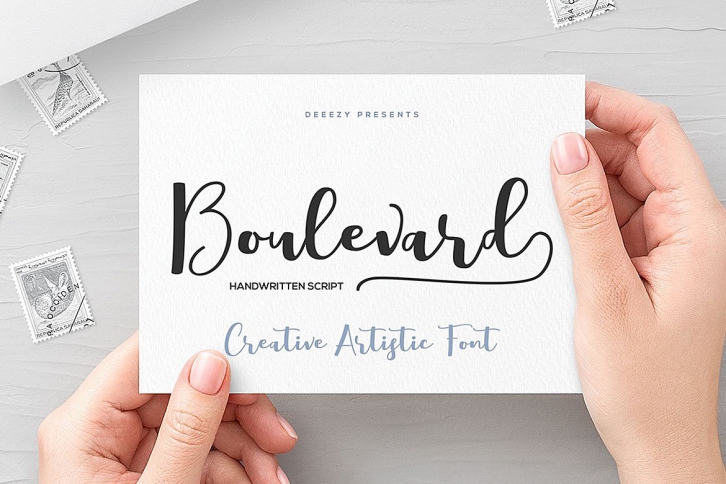
Boulevard Script is a great font that was designed by Cruzine Design. Imagine the amount of combinations you can create using this font! The archive is 2.77 MB and it was released on June 9, 2019. Boulevard Script looks beautiful on wedding invitations, greeting cards, logos, posters, labels, t-shirt designs, logos, business cards and is perfect for use in ink or watercolor works, fashion, magazines, packaging and food menus, children's books and more!